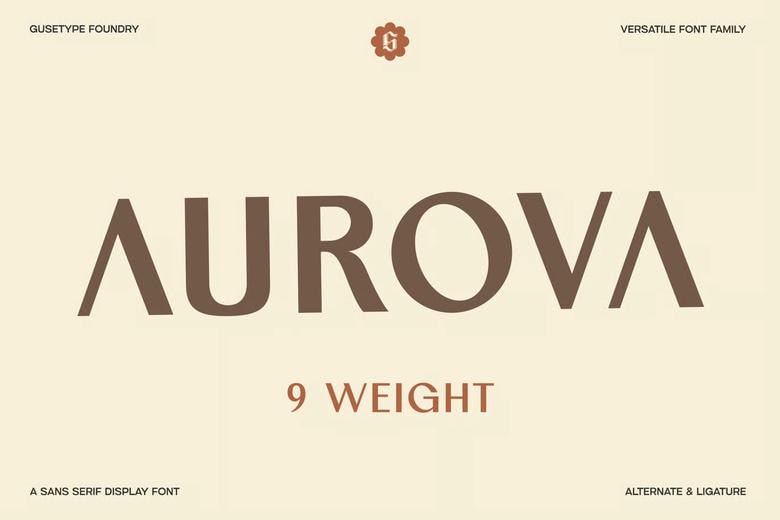
Aurova Font
Aurova is a sans serif display typeface family, which has a small touch of elegance, a combination of classic and contemporary clarity. It is professional and flexible-looking and can be used in numerous design purposes. With nine different styles, the thinnest to the darkest, Aurova also offers the full range of typography, which is perfect in the body text and bold headings.
The font contains the features of OpenType, including variants and ligatures, to express creativity and typography peculiarities. It provides multilingual services including the use of long Latin characters worldwide. Aurova can be used in editorial design, branding, visual identity, packaging and digital interfaces that require a complex aesthetic.
Aurova Sans Serif Font Family